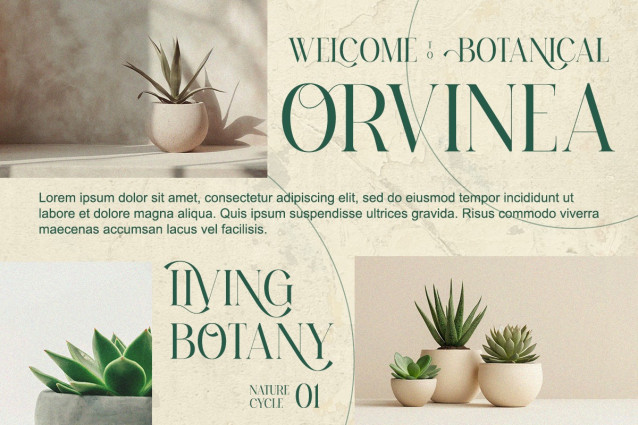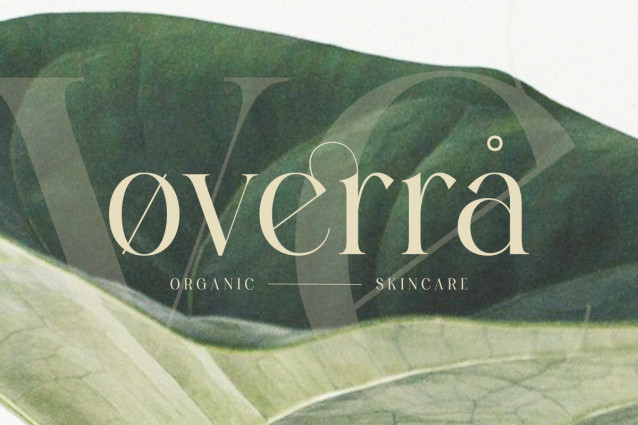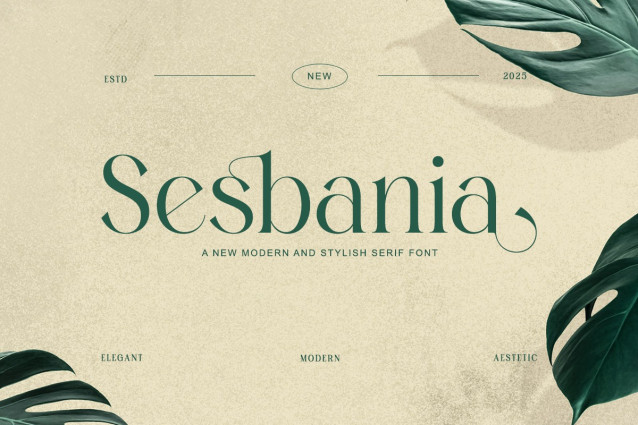
Sesbania Font
Sesbania Font is a modern serif font inspired by natural balance and minimalist design. With clean curves, refined details, and subtle ligatures, it’s ideal for branding, fashion packaging, and editorial layouts. Perfectly combining sophistication and simplicity, Sesbania delivers modern elegance for every creative project.